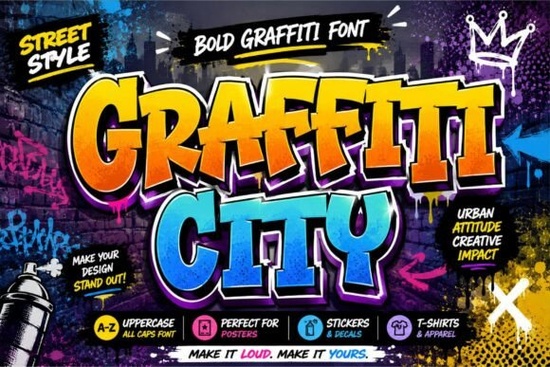
If you’ve ever needed a font that grabs attention without saying a word, Graffiti City Font might be exactly what your next project is missing. Designed with bold strokes, sharp angles, and an unmistakable street-style energy, it brings urban attitude to everything from t-shirt designs to social media banners. Whether you’re a print-on-demand seller crafting eye-catching merch or a small business owner building a brand with personality, this display font delivers confidence and character in every letter.
What makes Graffiti City stand out from other display fonts?
Unlike cleaner or more traditional typefaces, Graffiti City leans into its raw, expressive nature. Its chunky letterforms feel hand-drawn yet structured perfect for projects that need to feel alive and energetic. The playful shapes and uneven edges give it authenticity, like something you’d see on a city wall or a limited-edition sneaker box. It’s not meant to whisper; it’s built to shout (in the best way).
For designers working on album covers, gaming graphics, or streetwear branding, this font adds instant edge. And because it’s optimized for both digital and print use, it scales well across mediums from Instagram stories to large-format posters.
Where should you actually use this font?
Graffiti City shines in contexts where visual impact matters more than readability at small sizes. Think of it as your go-to for:
- Apparel designs – Hoodies, tees, and caps that need a bold statement
- Social media graphics – Posts that stop the scroll with high-energy typography
- Event posters – Music festivals, skate competitions, or pop-up markets
- Logo concepts – Especially for brands rooted in youth culture, music, or urban lifestyle
- Stickers and packaging – Limited-run products that benefit from a rebellious vibe
Just remember: because of its heavy weight and stylized forms, it’s best used for headlines or short phrases not body text or fine print.
Tips for using Graffiti City effectively
To get the most out of this font without overwhelming your design:
- Pair it with neutral sans-serifs. Let Graffiti City dominate the headline while using a simple font like Helvetica or Montserrat for supporting text.
- Use color intentionally. High-contrast combos (black on neon yellow, white on deep red) amplify its street-art roots.
- Avoid over-decoration. The font already has strong personality skip extra drop shadows or outlines unless they serve a clear purpose.
- Test at real-world sizes. If you’re printing on apparel or signage, preview how the details hold up when scaled down.
Also, consider layering it with textures concrete backgrounds, spray-paint splatters, or grunge overlays can enhance its urban aesthetic without competing for attention.
Who is this font really for?
Graffiti City isn’t trying to be everything to everyone and that’s its strength. It’s ideal for:
- Print-on-demand sellers creating urban-themed merchandise
- Indie musicians designing album art or tour posters
- Small streetwear brands building a recognizable visual identity
- Hobbyist crafters making custom stickers or tote bags with attitude
- Graphic designers who need a reliable “loud” font for client projects with edge
If your work thrives on authenticity, rebellion, or youthful energy, this font speaks your language.